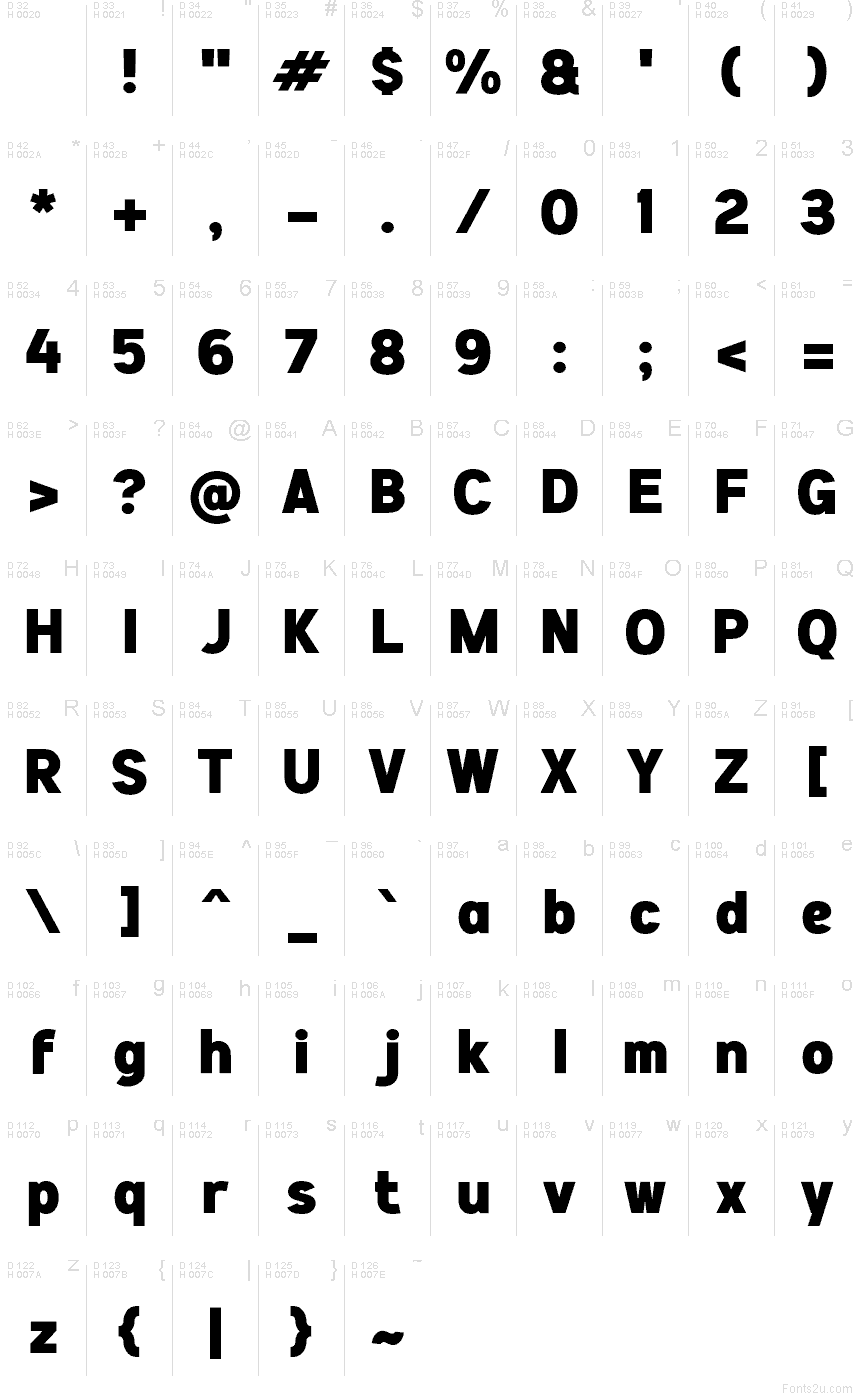
OAANO
Oaano font by wep is a free rounded sans serif typeface with a bold, inflated personality. Its letters feel like soft rubber blocks—heavy, evenly thick strokes, smooth curves, and compact shapes that almost hug each other. The tight rhythm keeps this chunky style from feeling messy, so you get all the fun and impact of a bubble font without sacrificing legibility.
Using Oaano, headlines snap into place with a friendly, almost toy-like energy that still reads clean and modern. This free font shines on kids’ branding, packaging, bold posters, logo wordmarks, social graphics, and playful UI titles. Pair Oaano with a light, neutral grotesque for body copy, and let it sit large on the page so those rounded forms can really breathe.